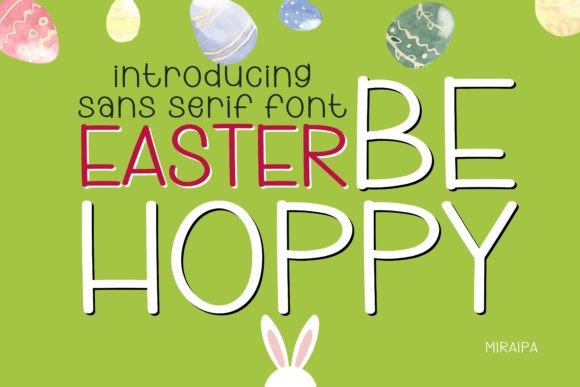
Behold, the Easter Be Hoppy Font, a captivating sans serif font with an enchanting handwritten style that exudes warmth and charm. Crafted by the ingenious miraipa, this delightful font possesses an inherent friendliness and irresistible cuteness that adds a whimsical touch to any design. Its unassuming charm instantly adds a dash of joy and personality to your creations, making it the perfect choice for adding a personal touch to your projects.
Embrace the spirit of Easter with this font, perfect for creating heartwarming invitations, cheerful greeting cards, and playful social media posts that capture the essence of the season. Let your imagination run wild as you design eye-catching logos, captivating branding materials, and vibrant website designs that radiate happiness and leave a lasting impression.
Unleash your creativity and explore the endless possibilities of the Easter Be Hoppy Font. Its versatile nature makes it an incredible asset to your font library, effortlessly elevating any creation, from whimsical illustrations and delightful posters to enchanting digital art and captivating presentations.